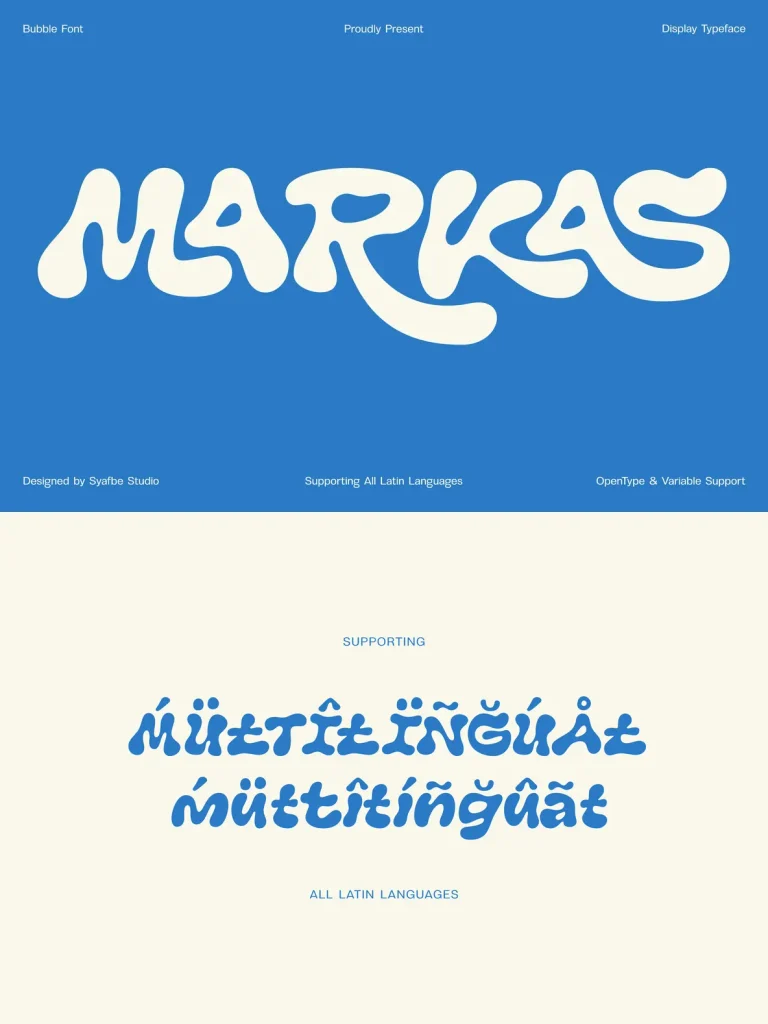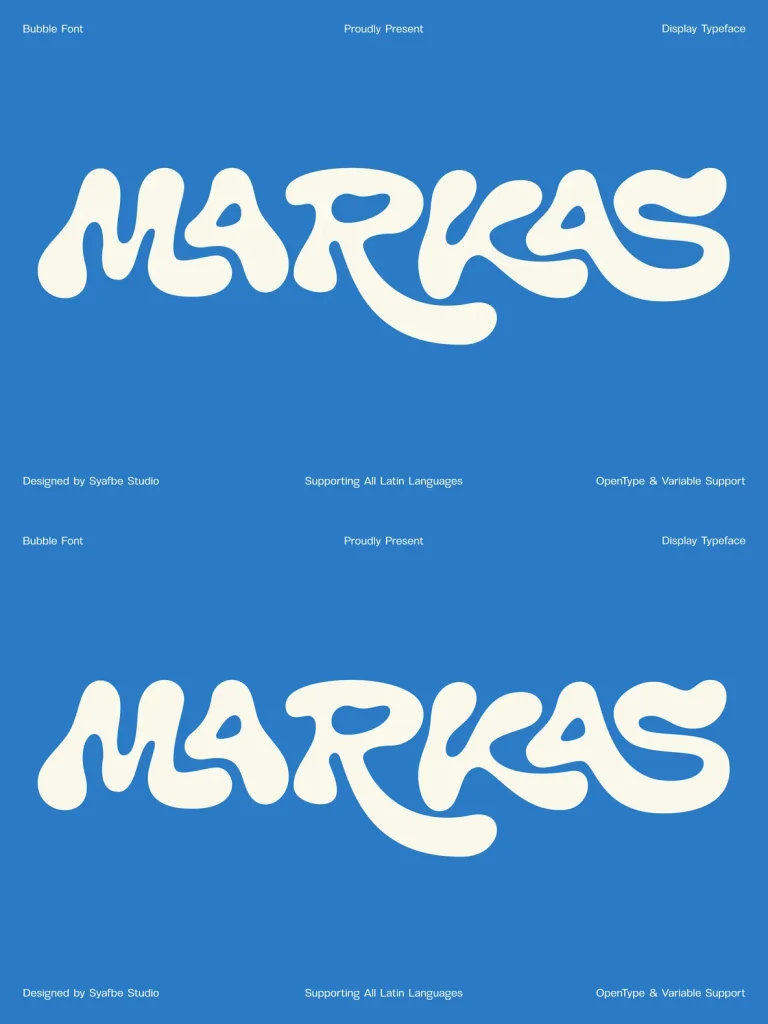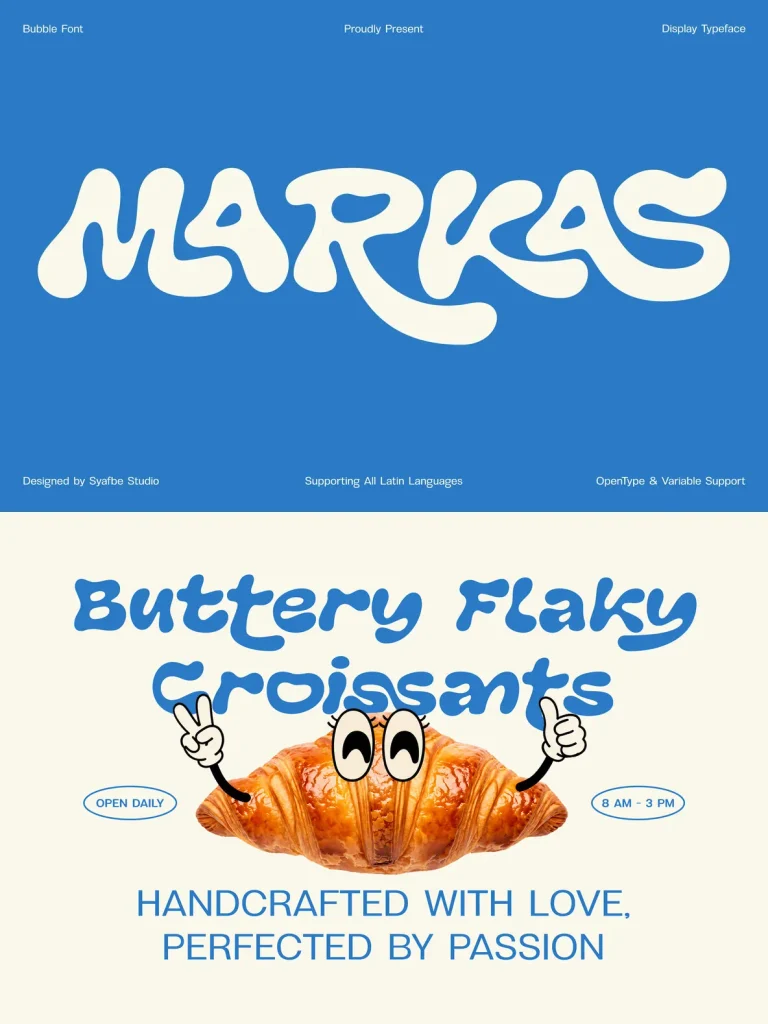
Markas — Bubble Forms with Character
Markas is an expressive bubble-style display typeface defined by organic forms, soft curves, and a bold visual presence. Its rounded structure and subtly irregular details give it a friendly, playful, and energetic personality while keeping a distinctive, confident tone. The name Markas, meaning a creative base or headquarters, reflects a place where ideas, stories, and visual identities come together, grow, and become memorable forms of communication.
Built for creative exploration, Markas includes a wide set of stylistic alternates and ligatures. These characters help each word feel more natural, dynamic, and customized, with a quality closer to handcrafted lettering than conventional digital typography. It also includes broad multilingual Latin support for international design applications.
OpenType Features
Stylistic alternates
Ligatures
Multilingual Latin Support
Accented characters
Numerals
Punctuation
Symbols
Essential diacritics
Suggested Uses
Branding
Logos
Packaging
Posters
Editorial layouts
Merchandise
Social media content
Film titles
Food and beverage identities
Lifestyle campaigns
Markas works especially well in headlines and display settings where strong visual impact matters. It also pairs naturally with cleaner typefaces for supporting text. More than simply a font, Markas is a versatile visual tool made to bring warmth, personality, originality, and lasting recognition to every project.